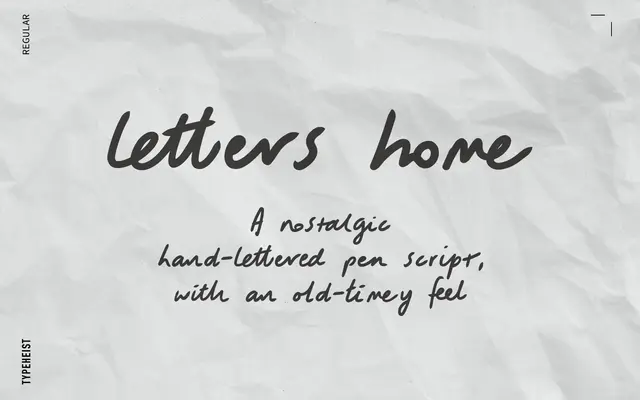
Mega Font Bundle 2023
Typeheist · 2023
A bundle of 17 realistic handwriting fonts from Typeheist's full 2023 catalogue, sold at a discount for desktop and web use.
The bundle is described as comprising realistic handwriting fonts with handcrafted character sets and ligatures, placing it squarely in the script/handwriting category.